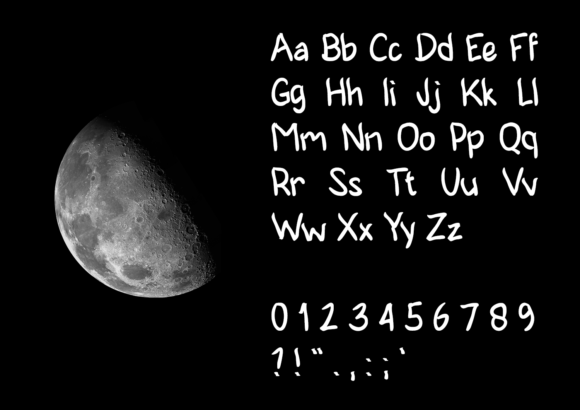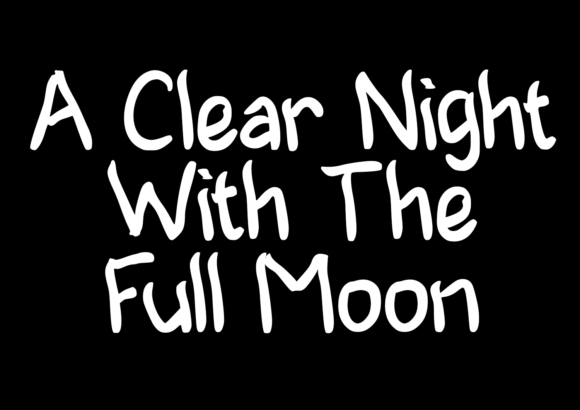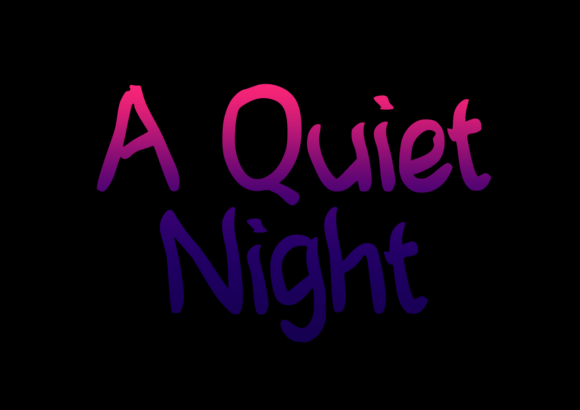
The Magic of Full Moon Font: A Designer’s Delight
I still remember the night I stumbled upon the Full Moon Font while working on a branding project for a mystical wellness client. I had been searching for the perfect typeface to capture the essence of their moonlit yoga sessions, and suddenly, this cool and mysterious handwritten font appeared on my screen. It was love at first sight! ✨ The unique, stylish look of Full Moon Font instantly elevated my design, and I knew I had found the perfect fit.
An Honest Review of Full Moon Font
- ✨ Unique and stylish handwritten design that adds a touch of magic to any project
- ✅ Highly versatile and adaptable for various design applications, including branding, posters, apparel, and merchandise
- ✅ Easy to read and understand, even in smaller font sizes
- ✅ Beautifully crafted to evoke a sense of mystery and wonder
While Full Moon Font is an amazing typeface, there are a few minor quirks to be aware of: 🤔
- ⚠️ Some characters may appear a bit narrow or condensed, which can affect legibility in certain contexts
- ⚠️ Limited availability of language support, which might be a concern for designers working with non-English text
A Practical Guide to Using Full Moon Font
The Backstory of Full Moon Font
Full Moon Font was designed by a talented typographer who’s passionate about creating unique and stylish typefaces. According to the designer’s fictional backstory, the inspiration for Full Moon Font came from a dream about walking under a full moon and feeling a sense of wonder and magic. 🌕 The designer aimed to capture this feeling in a font that’s both elegant and mysterious.
Q: What is Full Moon Font?
A: Full Moon Font is a cool and mysterious handwritten font that’s perfect for designs that require a unique, stylish look.
Q: Is Full Moon Font available in different languages?